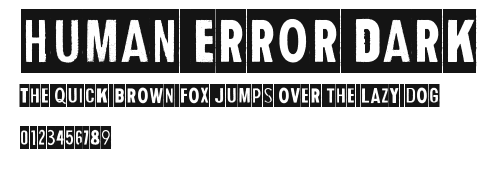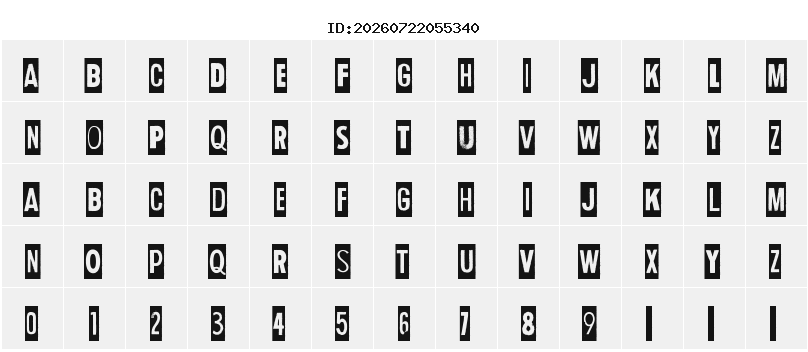
• Font Name: Human Error Dark
• Full Font Name: Human Error Dark
• Designer: junkohanhero
About Human Error Dark.ttf
Human Error Dark.ttf is a modern, elegant sans-serif font designed for ultimate readability and visual harmony. Perfect for branding, headlines, web design, and print materials.